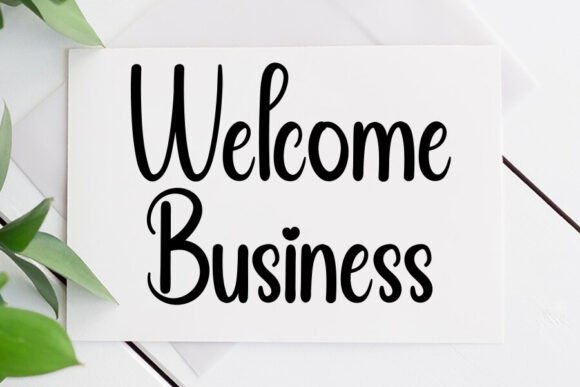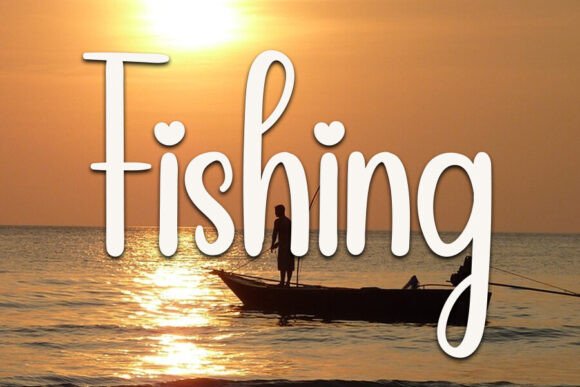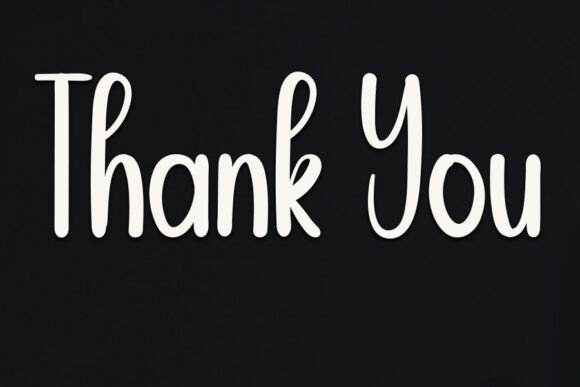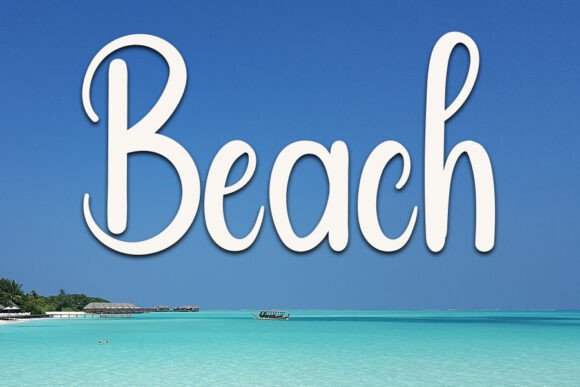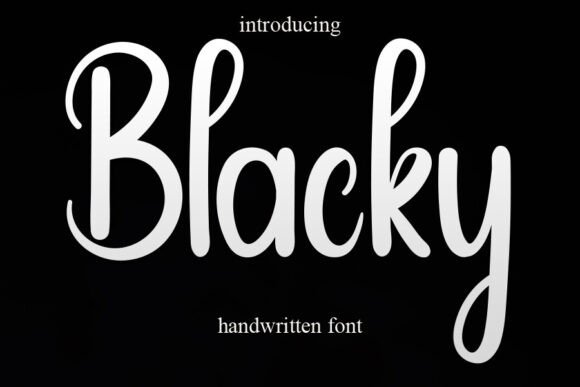
Discover the Charm of Blacky Font: A Simple yet Versatile Handwritten Font
In the world of typography, fonts play a crucial role in conveying the tone and personality of a project. Whether you’re a designer, crafty DIY enthusiast, or a business owner looking to brand your products, finding the right font can make all the difference. If you’re on the hunt for a font that exudes simplicity, elegance, and a touch of handmade charm, look no further than Blacky Font. In this article, we’ll dive into the characteristics, uses, and benefits of Blacky Font, and explore how it can elevate your creative projects.
What is Blacky Font?
Blacky Font is a simple handwritten font designed to bring a natural and effortless feel to your designs. Its uncomplicated, cursive style makes it highly legible and versatile, suitable for a wide range of applications. From greeting cards and invitations to headlines and branding materials, Blacky Font is a reliable choice for anyone seeking a clean yet personal touch.
Key Features of Blacky Font
• Handwritten Style: Blacky boasts a genuine handwritten look, adding warmth and personality to your text.
• Versatility: Its simple yet elegant design makes it perfect for various projects, from digital content to print materials.
• Legibility: The clear and flowing script ensures that your message is conveyed clearly, making it ideal for both headings and body text.
Applications of Blacky Font
The versatility of Blacky Font is one of its most appealing qualities. Here are some of the many ways you can use Blacky to enhance your projects:
• Greeting Cards and Invitations: Add a personal touch to your cards and invites with Blacky’s warm, handwritten style.
• Branding and Packaging: Use Blacky to create a friendly, approachable brand voice that resonates with your audience.
• Headlines and Titles: Blacky’s elegant script makes it perfect for headlines, titles, and subtitles in blogs, magazines, and websites.
• Social Media Graphics: Stand out on social media with eye-catching graphics that feature Blacky Font.
• DIY Projects and Crafts: Whether you’re making planners, journals, or crafts, Blacky Font can add a professional yet personal touch.
Benefits of Using Blacky Font
Choosing Blacky Font for your projects comes with several benefits:
• Unique yet Readable: Blacky offers a unique style that’s still highly readable, making it perfect for conveying your message effectively.
• Customizable: Blacky can be easily customized to fit your project’s needs, from adjusting the size to pairing it with other fonts.
Tips for Using Blacky Font Effectively
To get the most out of Blacky Font, consider these tips:
• Pair with Other Fonts: Combine Blacky with sans-serif fonts for contrast or with other script fonts for a layered look.
• Play with Sizes: Use varying sizes to create visual hierarchy and emphasize key points.
• Adjust Line Spacing: Ensure readability by adjusting line spacing according to your project’s requirements.
• Emphasize with Colors: Use color variations to highlight important information or to match your brand’s palette.
Font Name Blacky Font
Author cans studio
Blacky Font is a simple yet powerful tool for anyone looking to add a personal, handwritten touch to their projects. Its versatility, legibility, and ease of use make it an excellent choice for a wide range of applications, from professional designs to personal DIY crafts. By incorporating Blacky Font into your creative workflow, you can achieve a natural, effortless look that connects with your audience. So, why wait? Explore the possibilities with Blacky Font today and bring a touch of simplicity and elegance to your next project!